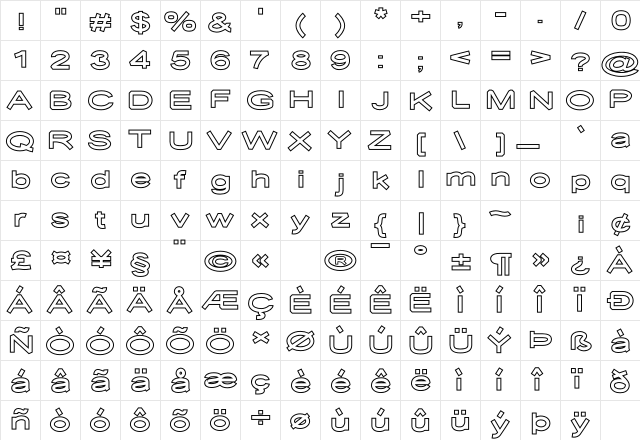
Desolator Outline Font Preview
Desolator Outline
Desolator Outline Font Details
| Style | Outline |
| Foundry | RILJS |
| Designer | riljs |
Design Context for Desolator Typeface
Desolator brings ornamental detail and strong personality to headlines and identities, where visual impact matters more than quiet functionality.